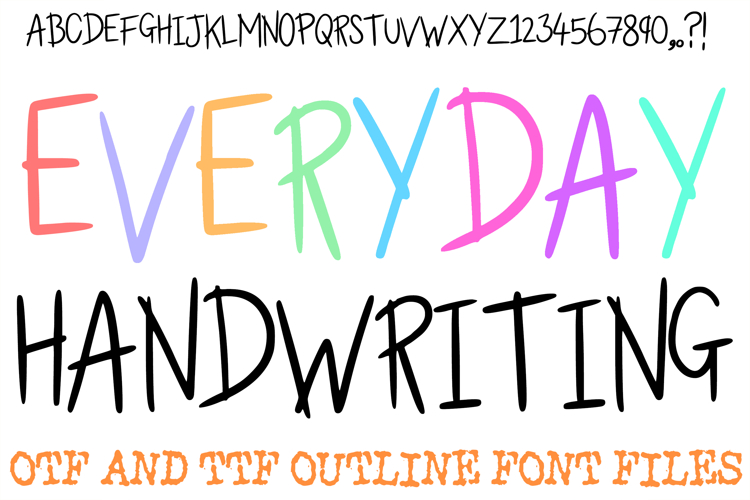
Everyday Handwriting Font Written Lettering ABC OTF Type
The Everyday Handwriting Font is a versatile and approachable hand-drawn typeface designed to add a warm, human touch to your creative projects. Featuring tall, slender character silhouettes, this font captures the effortless charm of natural penmanship while maintaining high legibility for both digital and physical applications. It is an ideal choice for digital planners, minimalist branding, stationery, and casual social media graphics.
Tall & Skinny Silhouette: The slender, vertical letterforms provide a modern, space-saving aesthetic that works beautifully for headers and captions.
Authentic Hand-Drawn Feel: Every stroke mimics the organic flow of a real pen, offering a non-digital look that adds personality and warmth to your text.
Clean & Minimalist Style: Its simple, understated design makes it easy to pair with bold display fonts or use as a standalone typeface for body text.